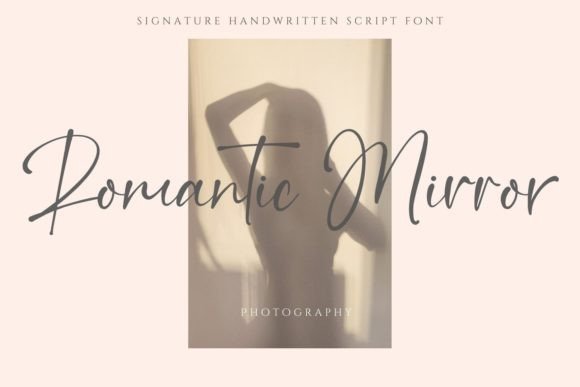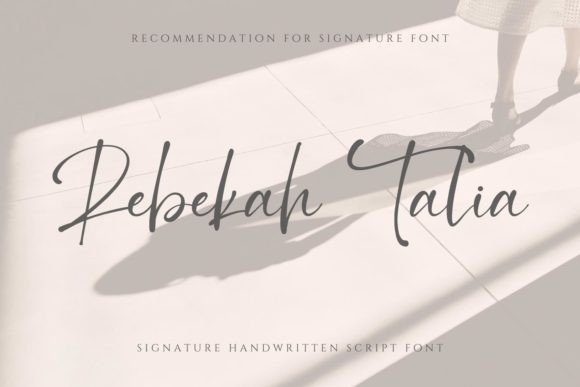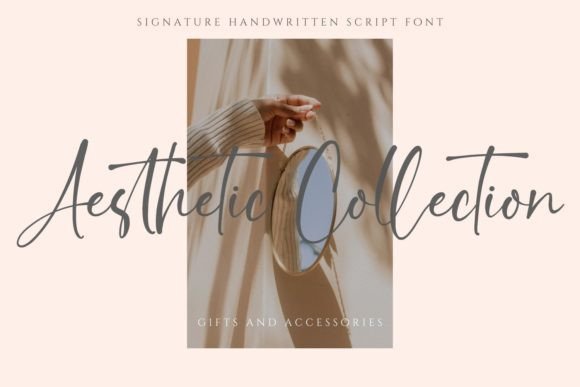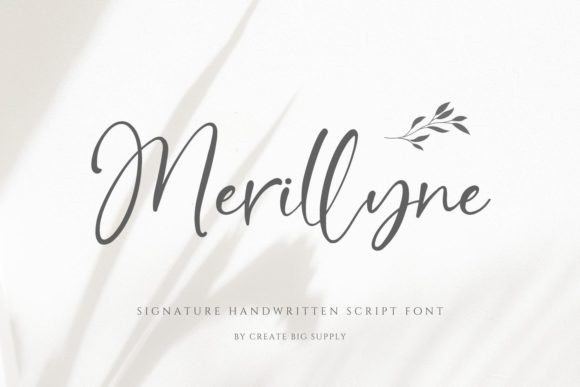
Introduction to Merillyne Font
Discover Merillyne, a captivating script signature handwriting font that brings elegance and personality to your designs.
With its beautiful cursive style, this font is perfect for adding a touch of sophistication to your projects Whether it’s creating stunning logos, eye-catching invitations, or stylish branding, Merillyne delivers a seamless handwritten look.
Key Features of Merillyne Font
Why Choose Merillyne Font?
Merillyne Font offers exceptional quality and versatility, making it a valuable addition to your design toolkit. Whether you’re creating for personal projects or commercial use, Merillyne Font delivers professional results.